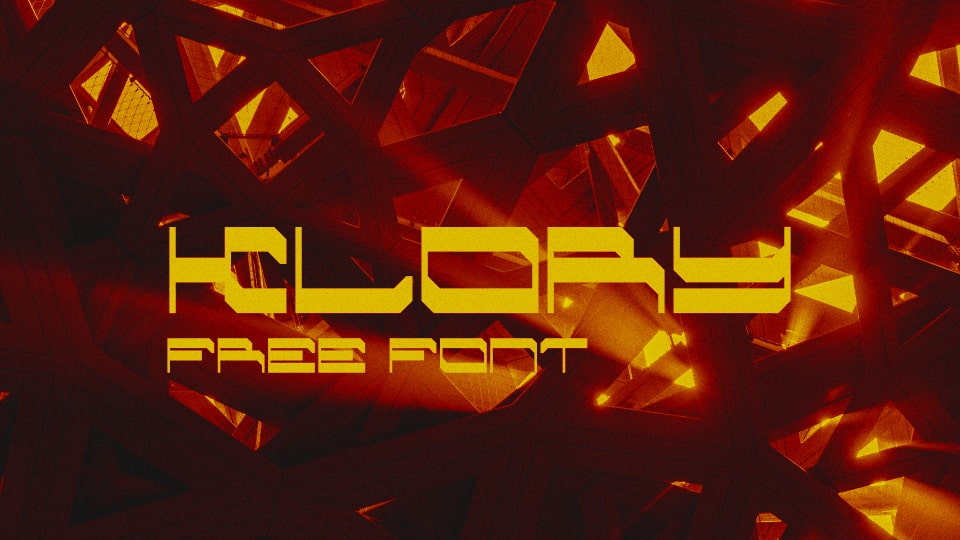
Download KLORY font, a futuristic, horizontal heavy typeface that refuses to go unnoticed. This monospaced display font holds its own in all its glory and goes well as a statement piece in brutalist, retro-futuristic, or cyberpunk designs.